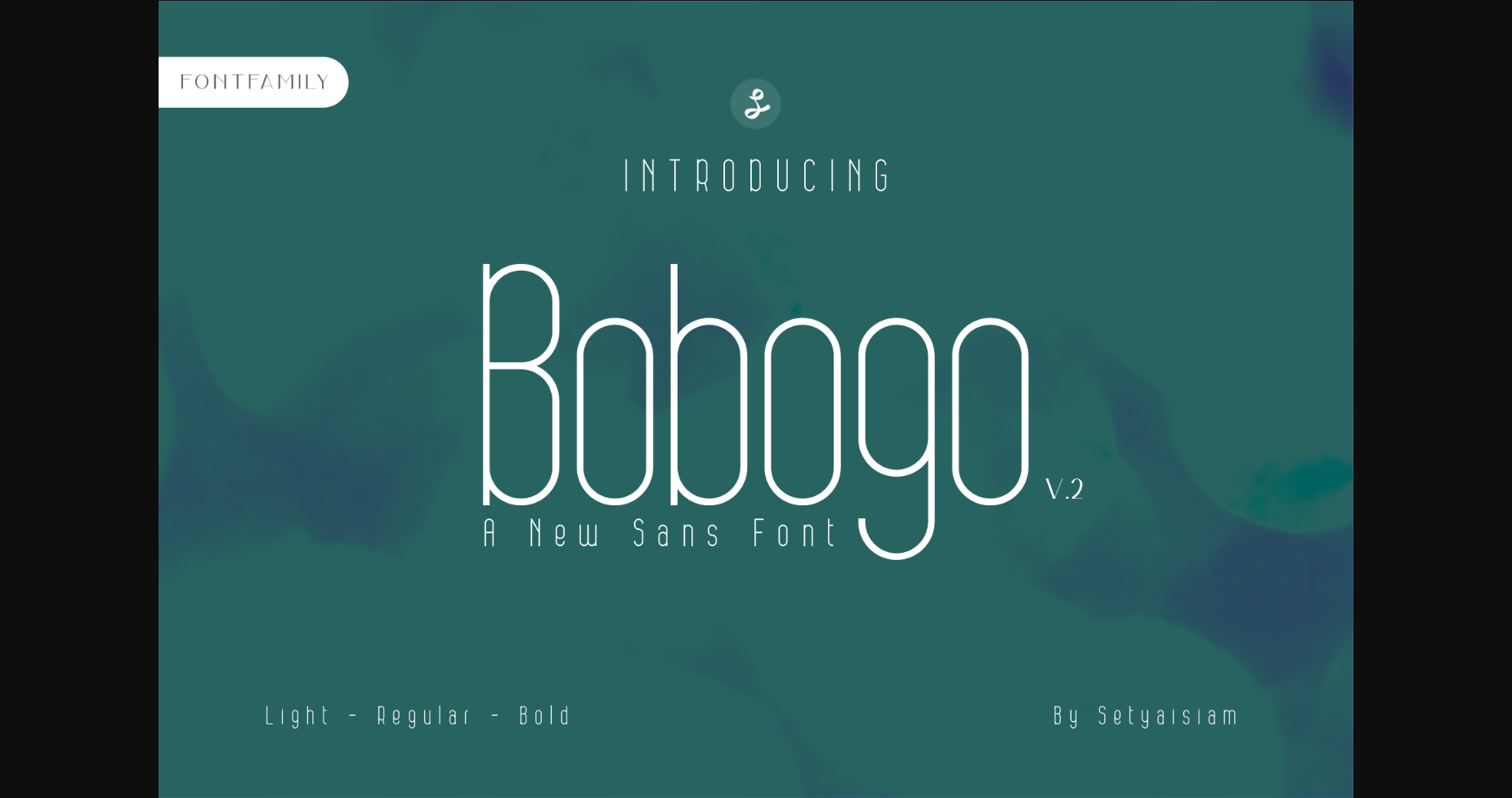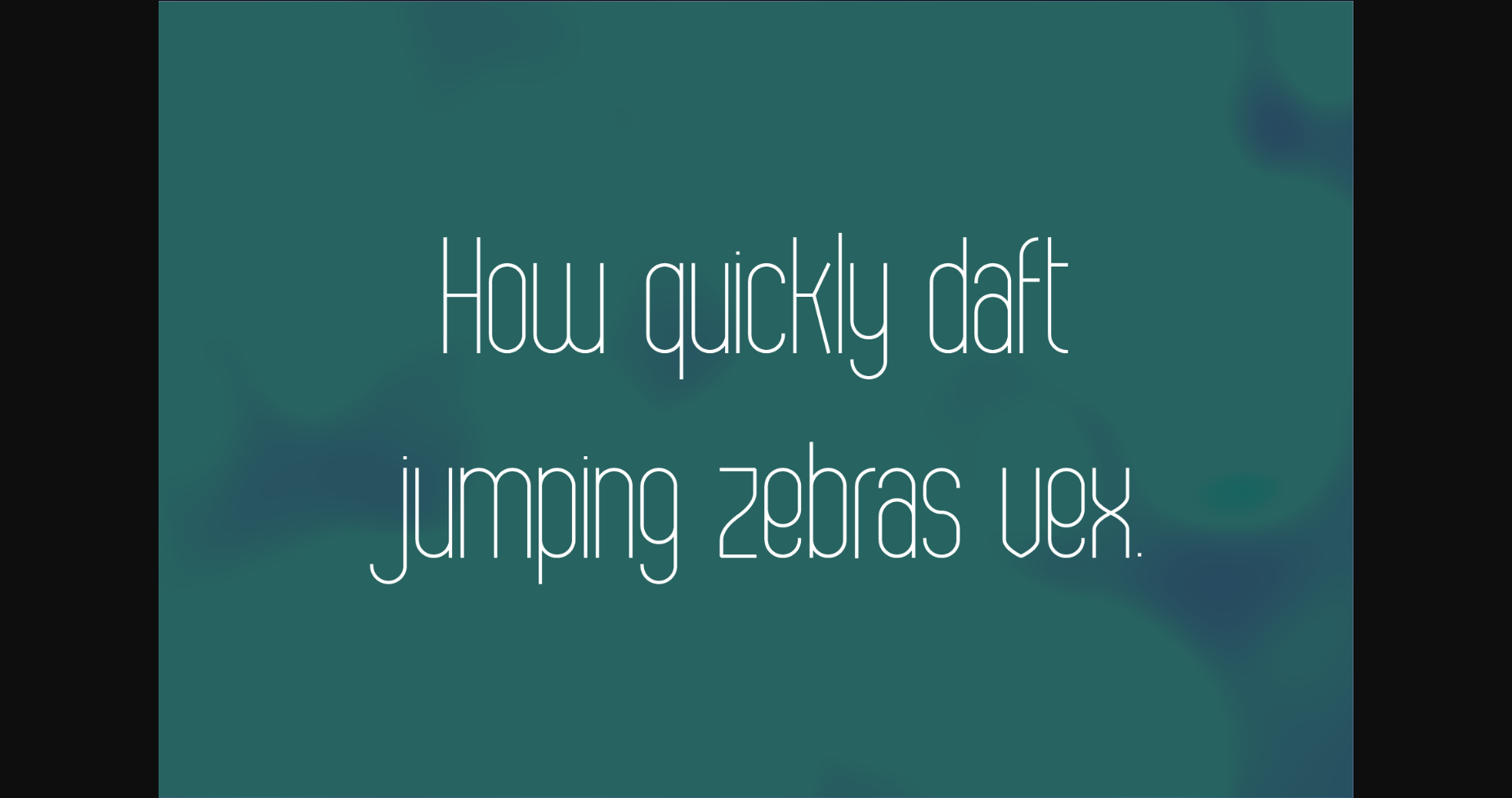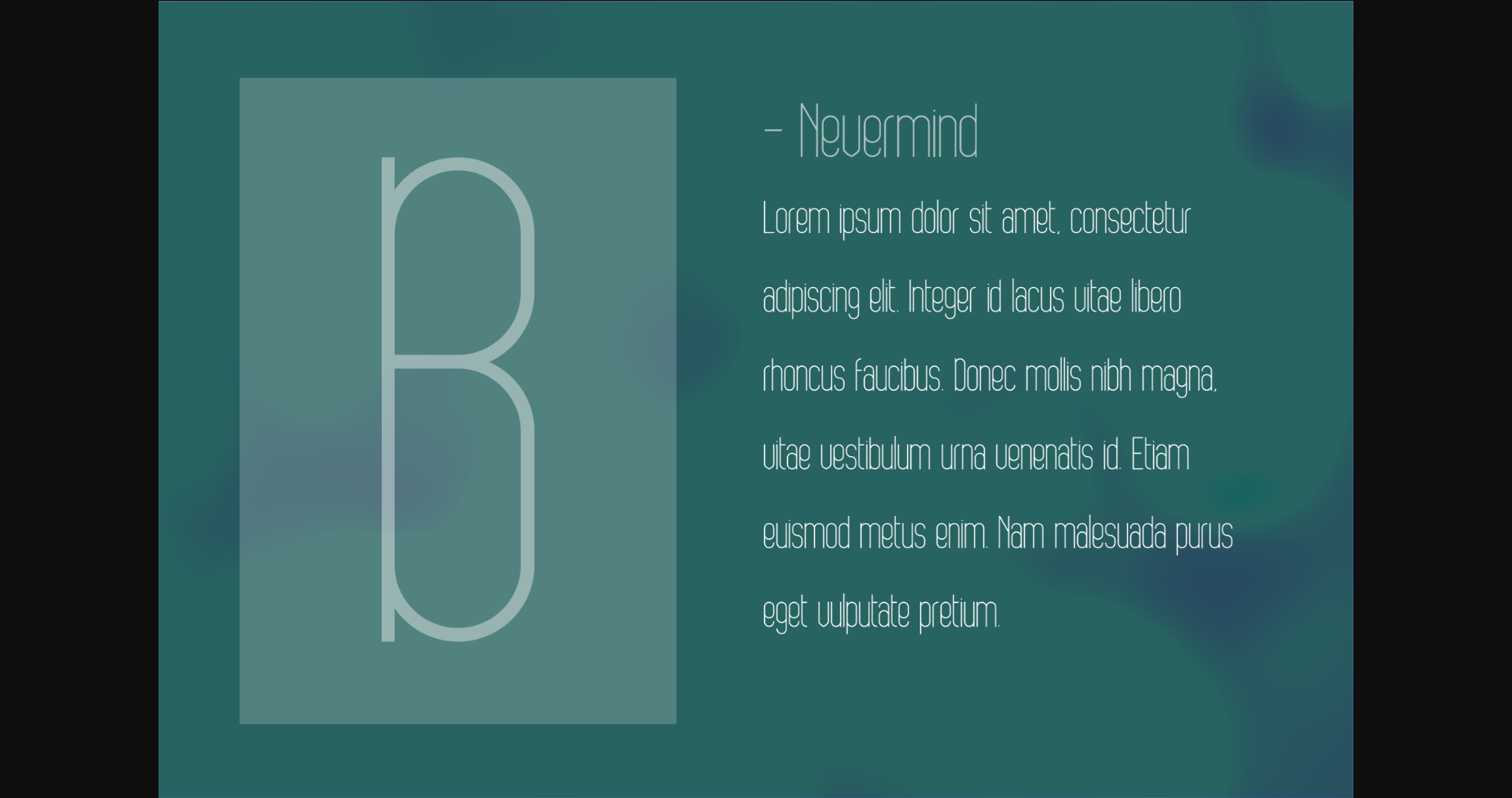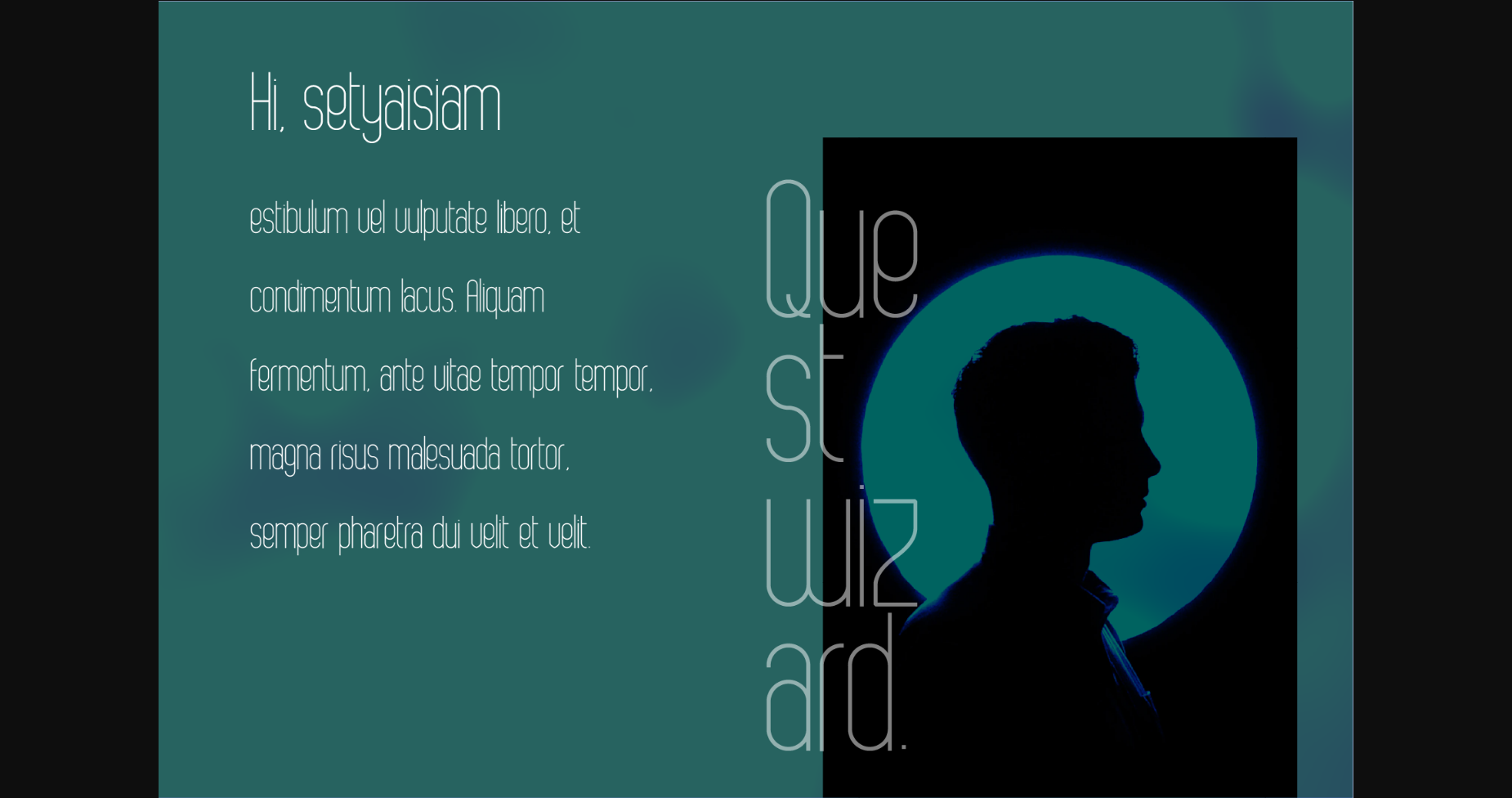
About Bobogo Font
Bobogo is a minimalistic and thin lettered sans serif font. No matter the topic, this font will be an incredible asset to your fonts’ library, as it has the potential to elevate any creation.